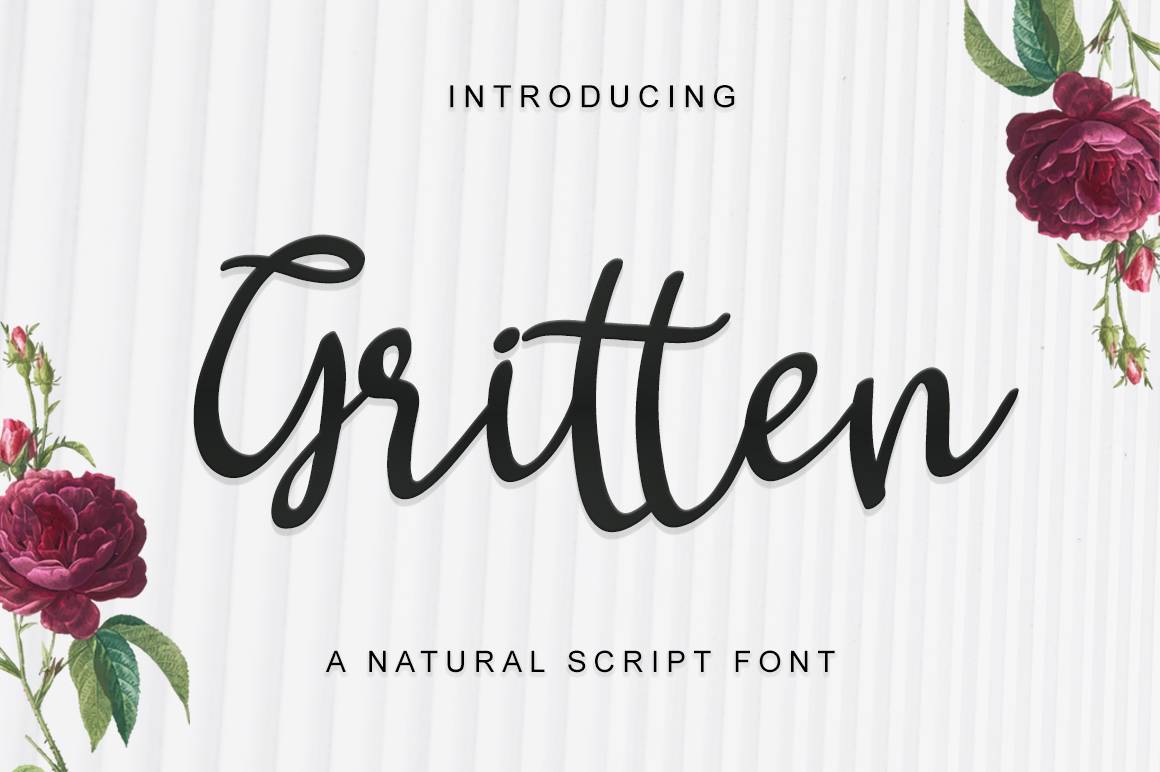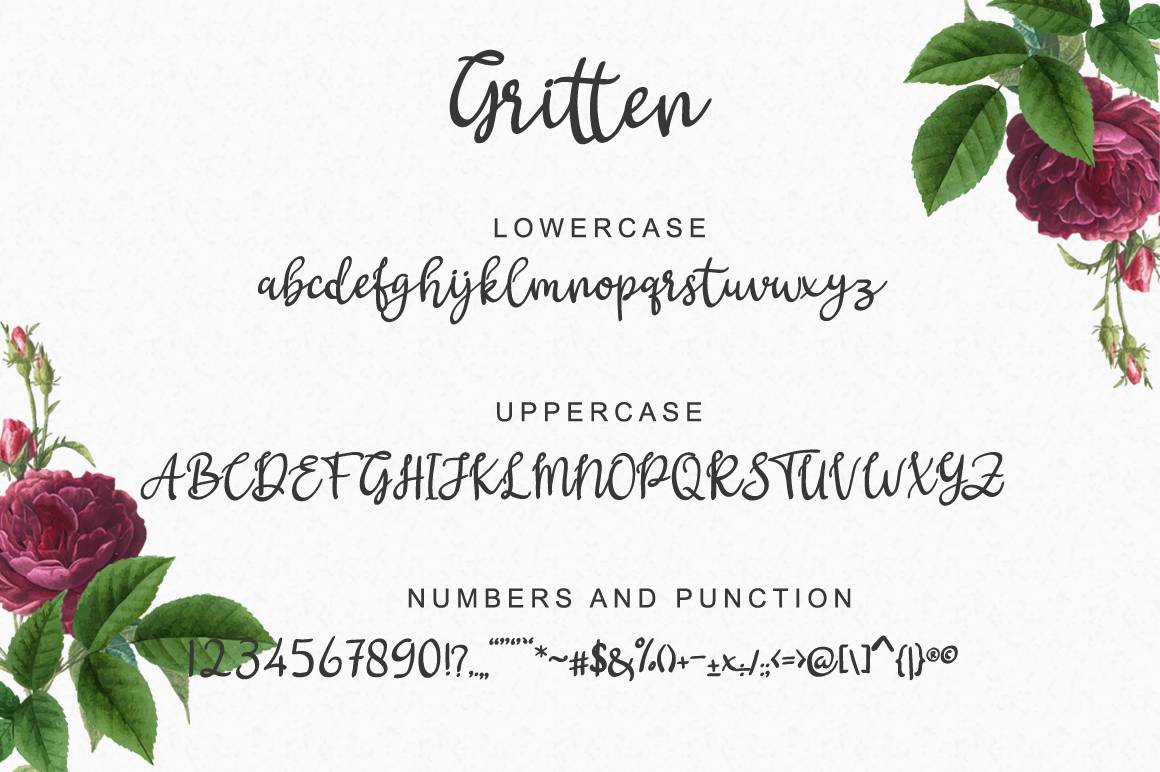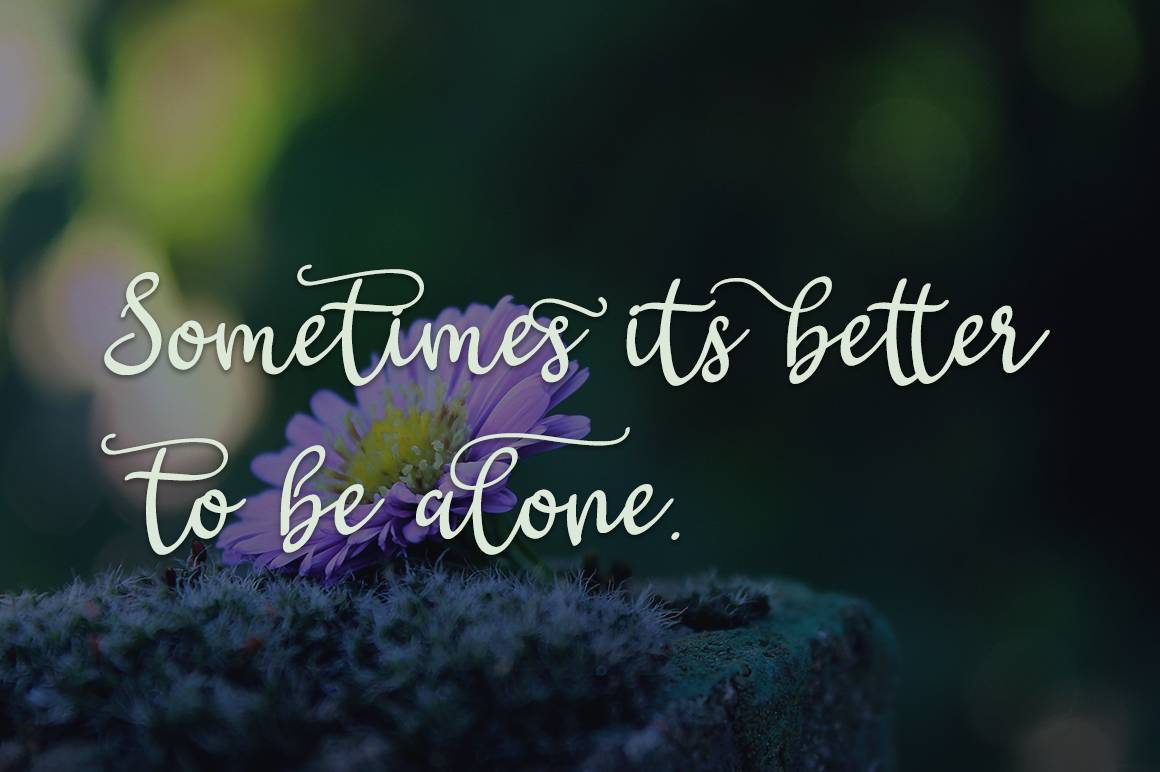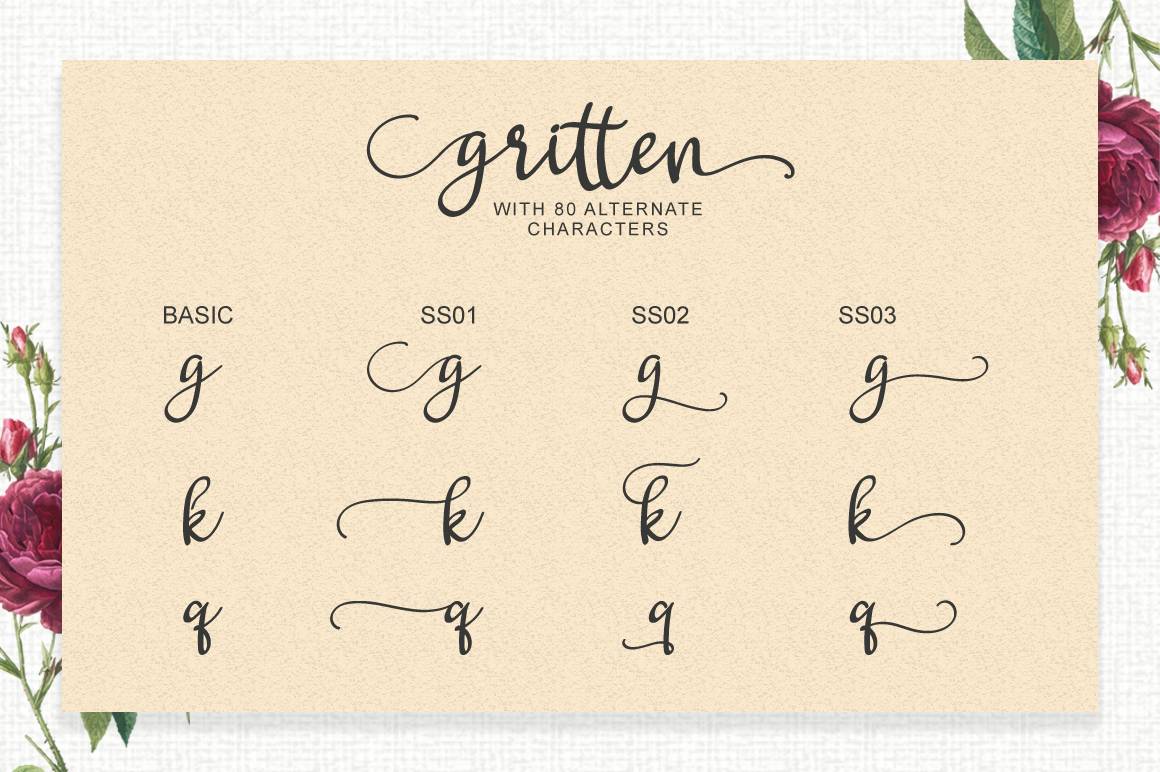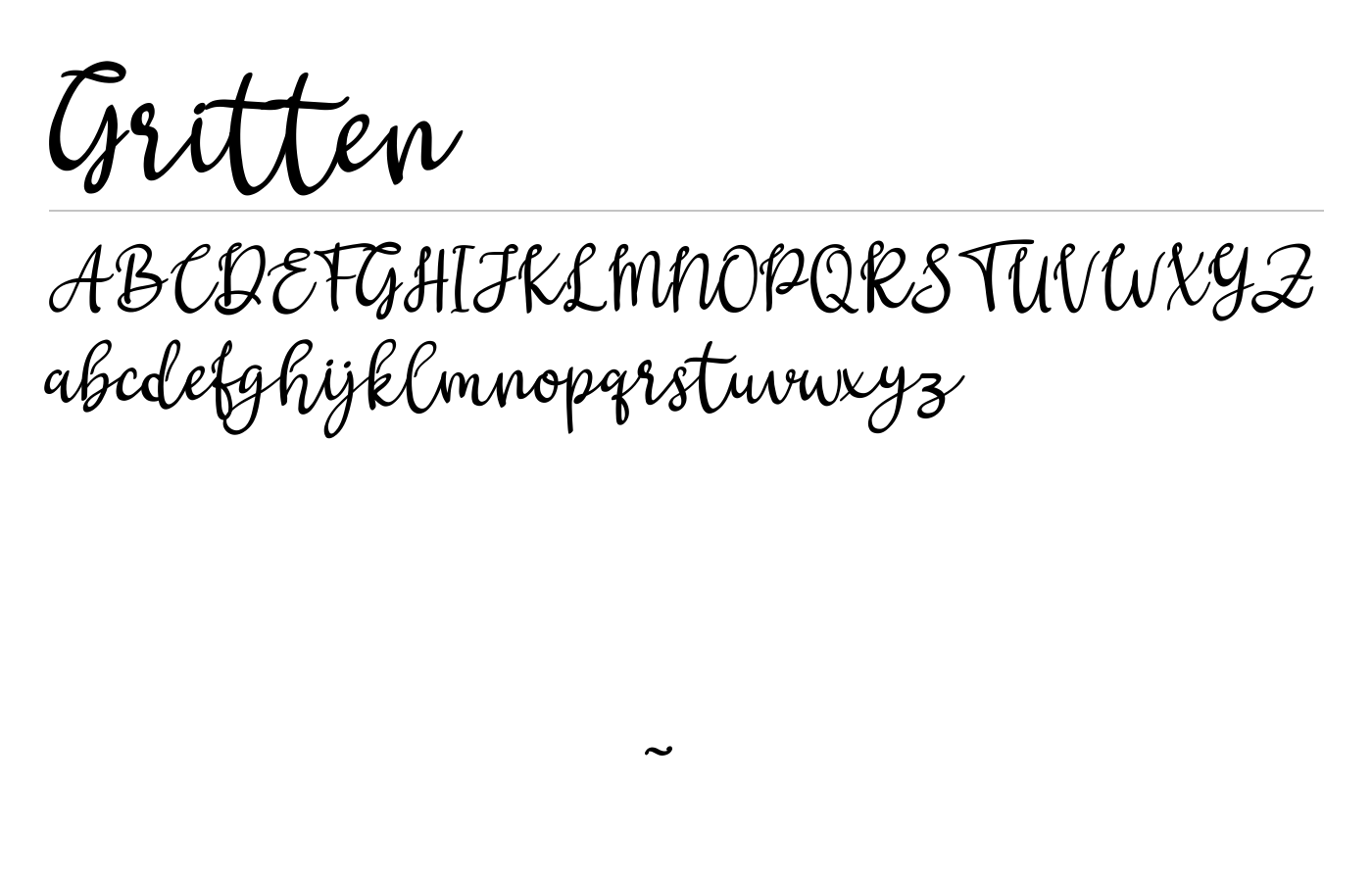
Gritten is a charming, handwritten script font with smooth, flowing strokes and a casual yet elegant feel. Its balanced letterforms and moderate contrast make it perfect for adding a personal, friendly touch to invitations, branding, and creative projects where warmth and style are key. This font works beautifully for logos, social media, and packaging that aim to convey creativity and approachability.
Gritten Font
About Gritten Font
| Font family | Gritten Font |
| Designer | DianHaniff |